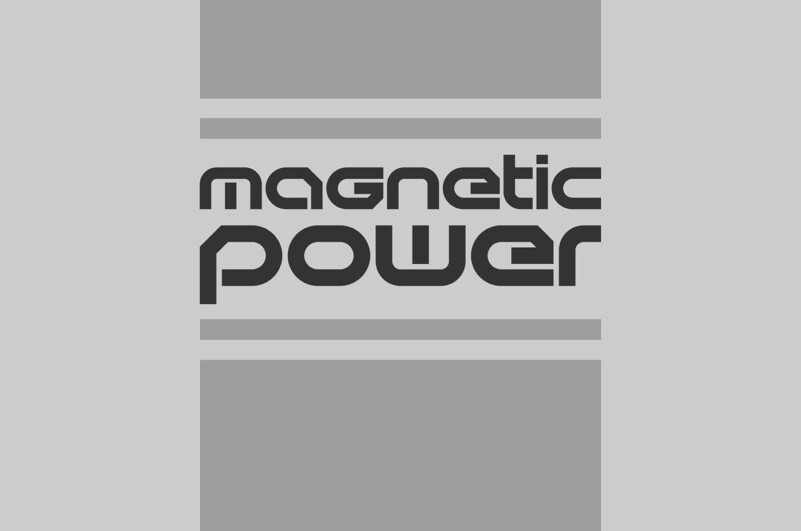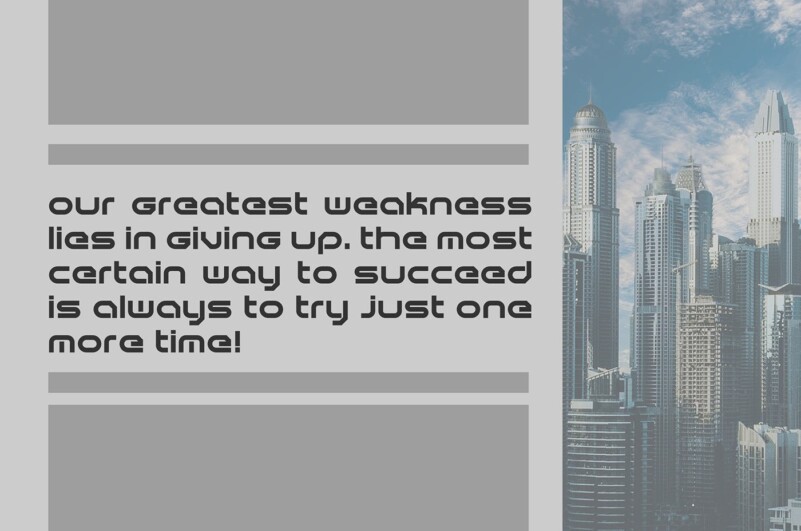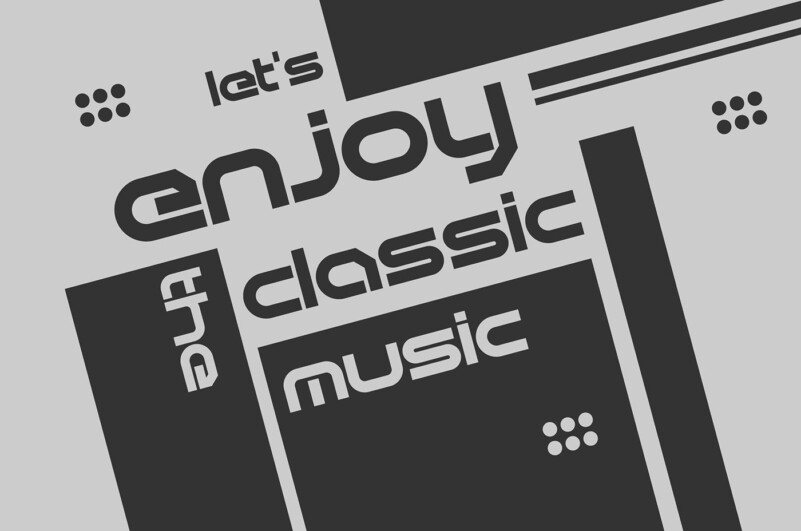
Magnetic Font
Magnetic Font is a new font for design of minimalistic logos. The font is suitable for creating wordmarks, titles, taglines. Use alternates to emphasize separate letters in your text. Magnetic is a perfect fit for your project and lets you create beautiful designs, headlines, posters, logos, badges, t-shirts and more.